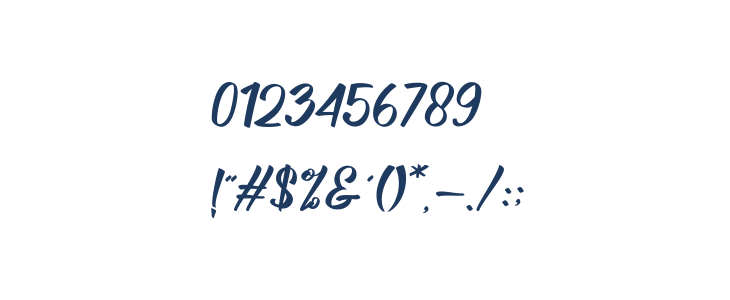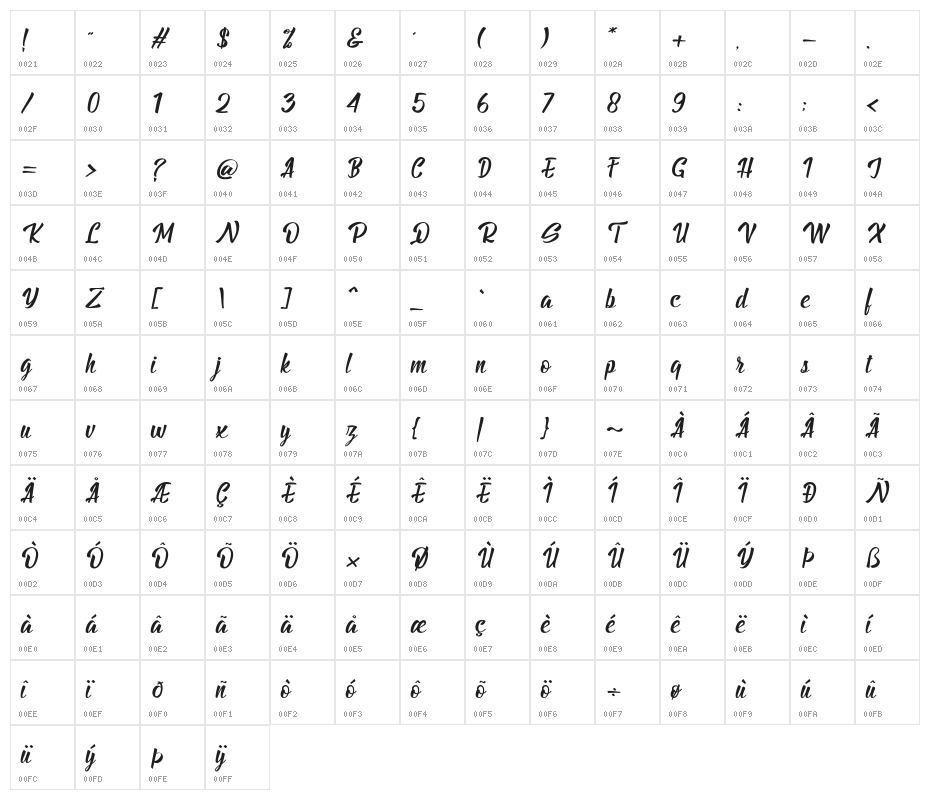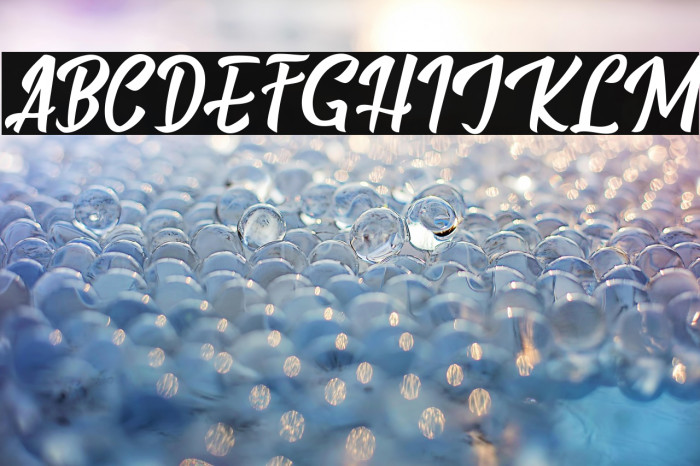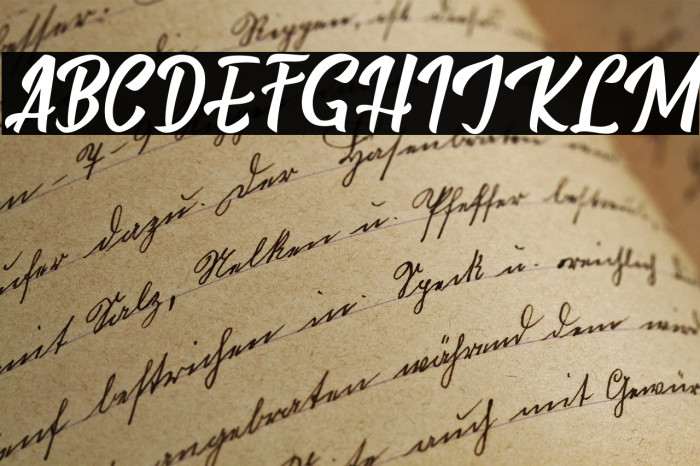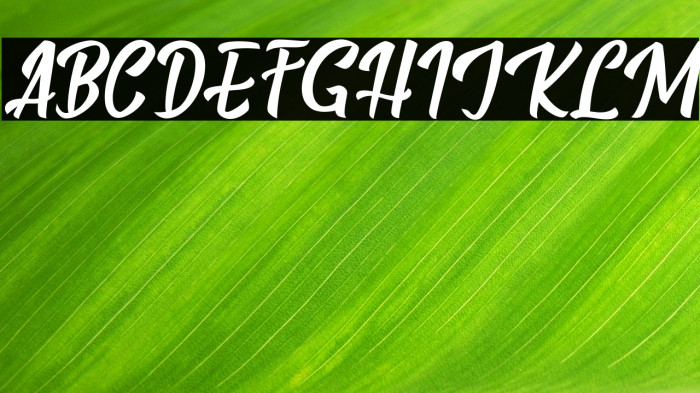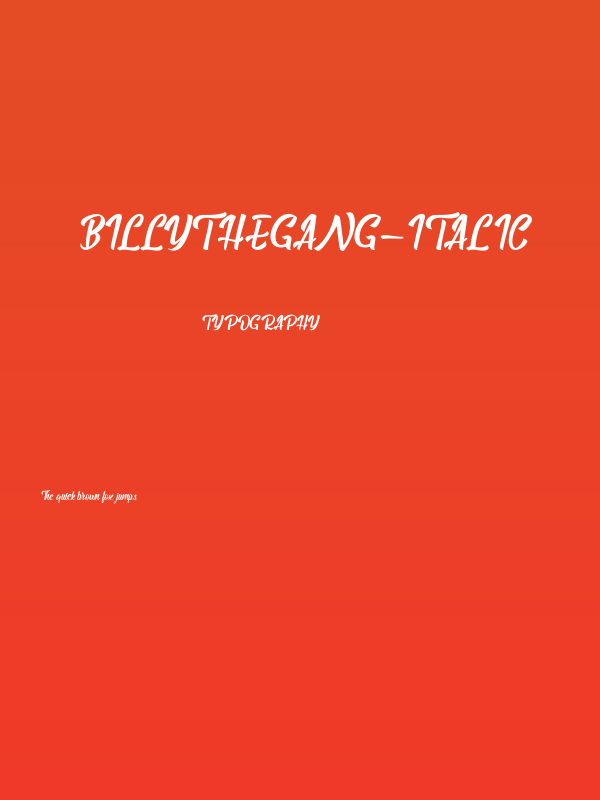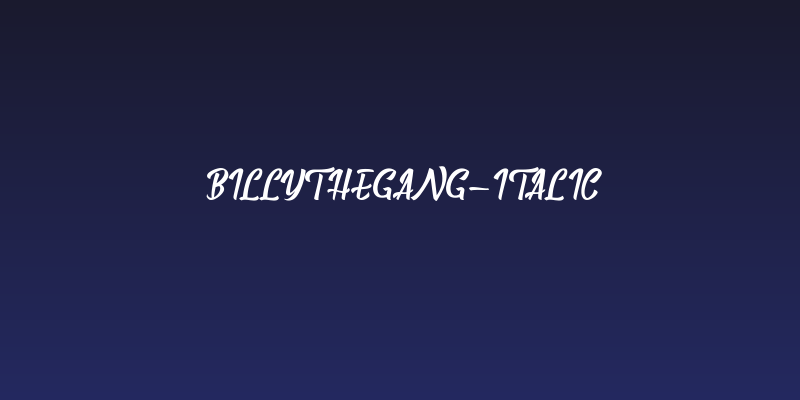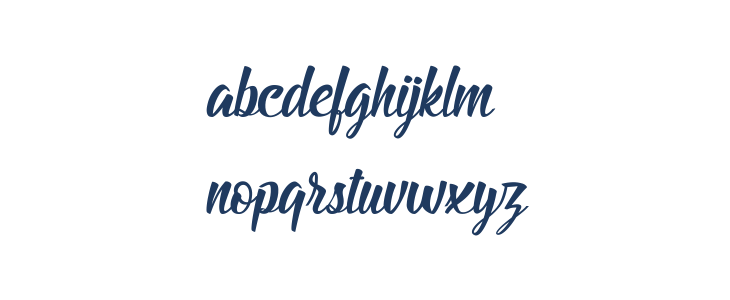
BillyTheGang-Italic Font
BillyTheGang-Italic Description
This font exhibits a dynamic and flowing script style, characterized by its elegant and slightly slanted letterforms. The uppercase letters are bold and prominent, while the lowercase letters maintain a consistent rhythm with smooth curves and connections. The numerals are designed to complement the overall script style, providing a cohesive look. Special characters are integrated seamlessly, enhancing the font's versatility. The font's design suggests a sense of movement and energy, making it suitable for creative and expressive projects.
| Proposed Projects | Ideal for invitations, greeting cards, branding, and logo design where a personal and artistic touch is desired. |